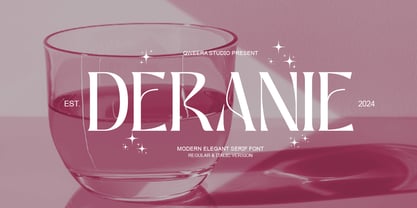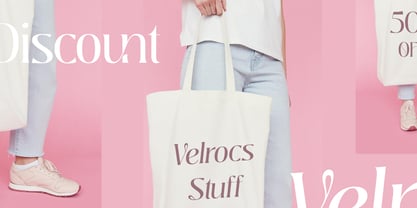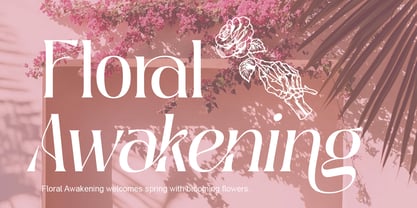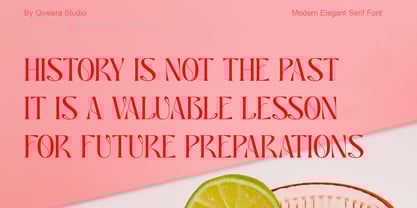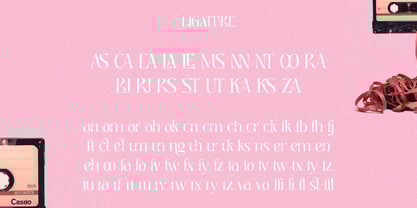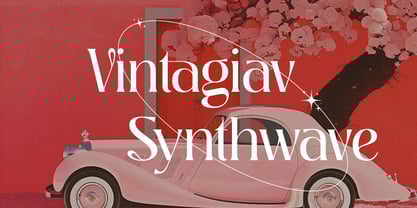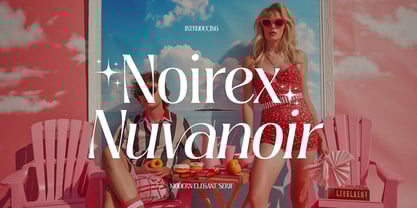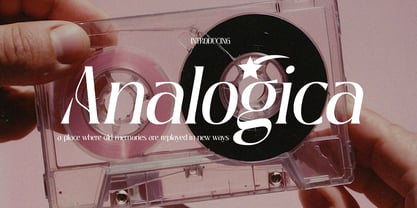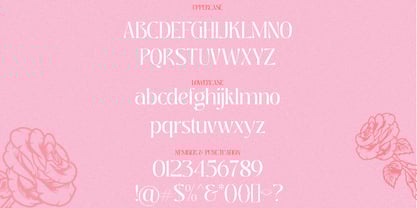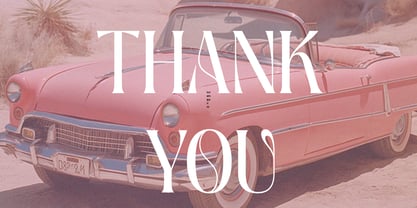
Deranie
by Qweera Studio
The Deranie Font Family was designed by Idhham Cholid Rikzano Yahya and published by Qweera Studio. Deranie contains 2 styles and family package options. More about this family
Deranie - Modern Elegant Serif Font for Sophisticated Branding
Deranie is a refined serif typeface that blends contemporary elegance with timeless sophistication. Featuring both Regular and Italic styles with exquisite stylistic ligatures and alternates, this font is meticulously crafted for premium branding, luxury logos, high-end packaging, and editorial designs that demand both beauty and functionality.
Where Modern Minimalism Meets Classic Elegance
With its clean lines and graceful curves, Deranie delivers exceptional versatility for brands seeking both refinement and impact. The carefully designed ligatures and alternates enable seamless typographic harmony, perfect for creating distinctive visual identities.
Premium Features Include:
• Elegant Serif Design – Balanced letterforms with refined details
• Dual Style Versions – Regular & italic for dynamic applications
• Stylistic Ligatures – 20+ seamless letter combinations
• Sophisticated Alternates – Customizable character variations
• Universal Compatibility – From business cards to billboards
• Extended Latin Support – Comprehensive character set
Elevate Your Brand with Deranie's Timeless Grace Ideal for:
• Luxury fashion branding
• Premium cosmetic packaging
• High-end editorial design
• Sophisticated logo creation
• Elegant stationery suites
Designers: Idhham Cholid Rikzano Yahya
Foundry: Qweera Studio